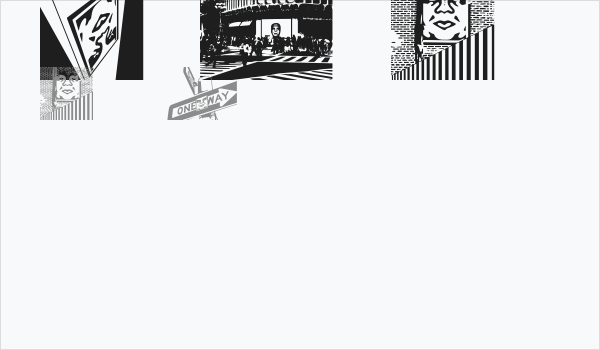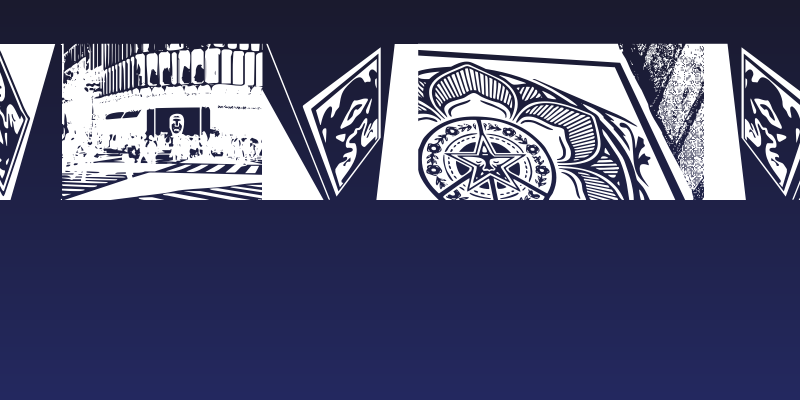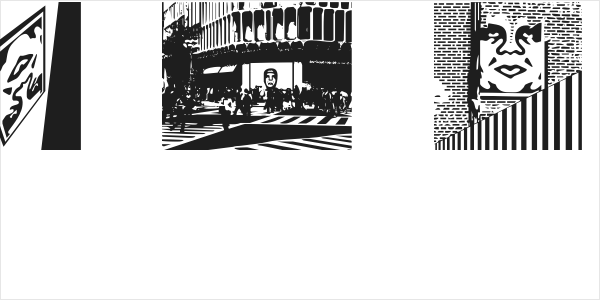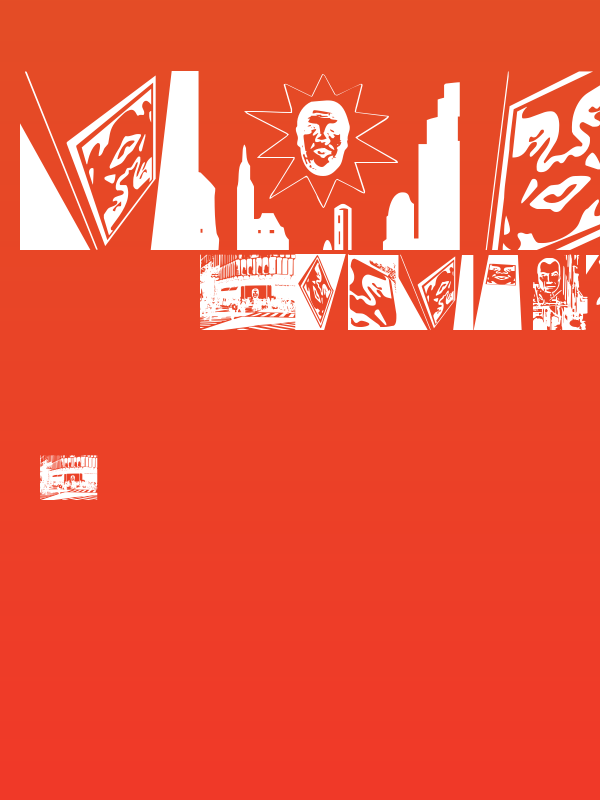
ObeyTownCaps Font
ObeyTownCaps Description
This font is a highly decorative and artistic typeface that integrates urban and cultural motifs within each letterform. Each character is a collage of intricate designs, featuring elements like cityscapes, iconic imagery, and abstract patterns. The style is bold and visually striking, making it ideal for projects that require a strong visual impact. The font's unique design elements create a sense of movement and energy, reflecting a modern, urban aesthetic. The characters are uppercase only, with no lowercase or numerical options, emphasizing its use as a display typeface.
| Overall Style | Modern, Urban, Artistic |
| Proposed Projects | Ideal for posters, album covers, streetwear branding, and any project needing a bold, artistic statement. |